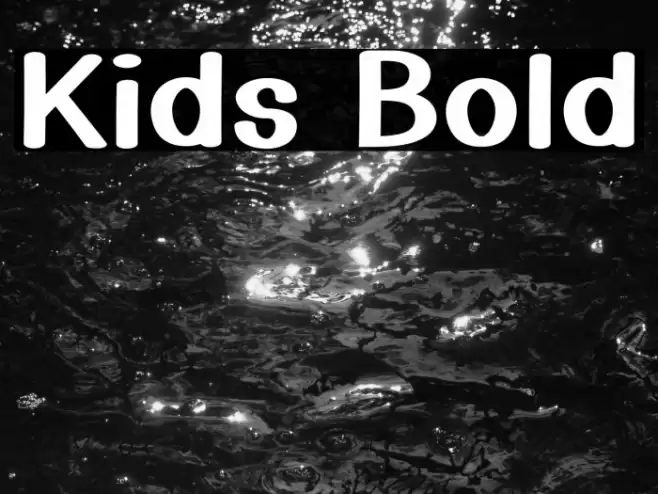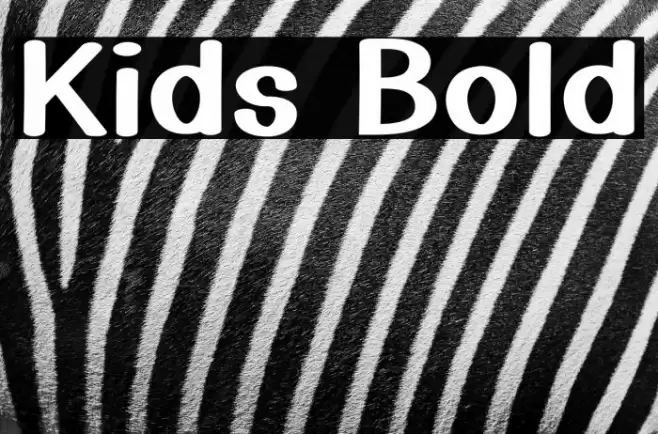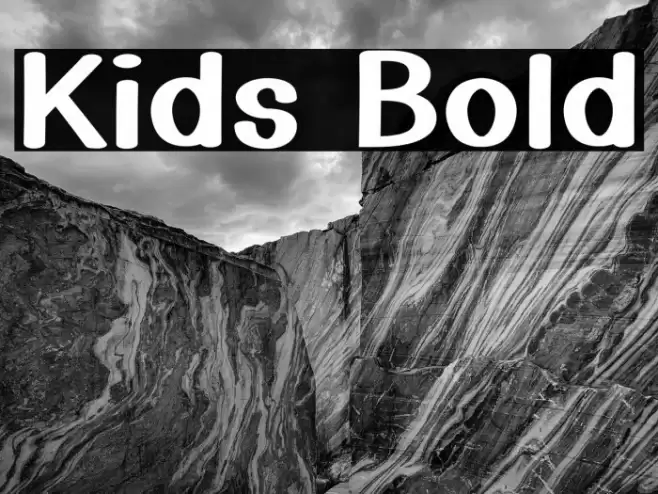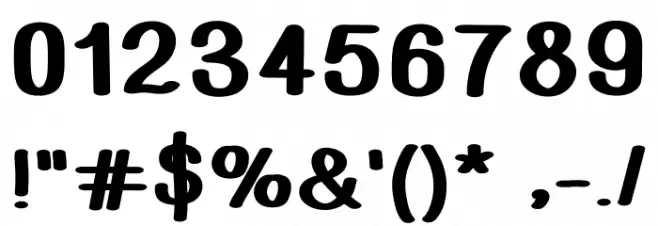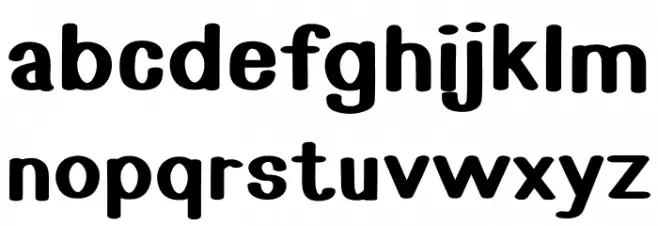
Kids Bold Font
Kids Bold Description
This playful and bold font features rounded edges and a friendly appearance, making it ideal for children's materials and informal settings. The uppercase and lowercase letters are well-proportioned, with a consistent stroke width that enhances readability. The numerals are clear and distinct, while the special characters maintain the font's approachable style. Its design exudes a sense of fun and creativity, perfect for engaging young audiences or adding a whimsical touch to any project.
A playful, bold font with rounded edges and a friendly, approachable style from Uncategorized fonts.
- Proposed Projects: Ideal for children's books, educational materials, playful branding, and toy packaging.
- Overall Style: Playful
- Use Case: Headlines, Logos, Children's materials